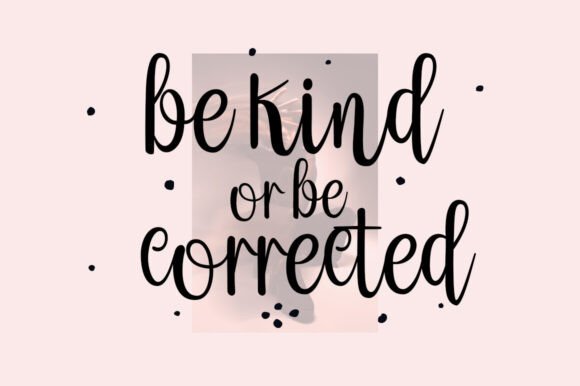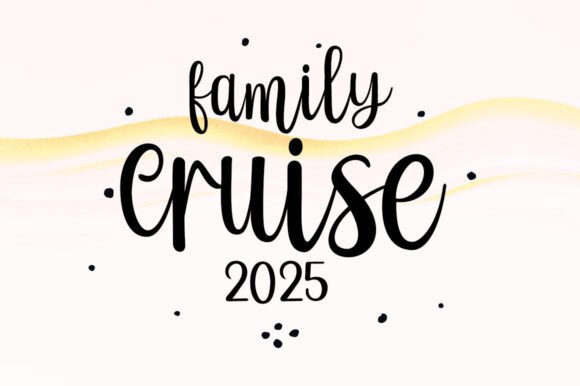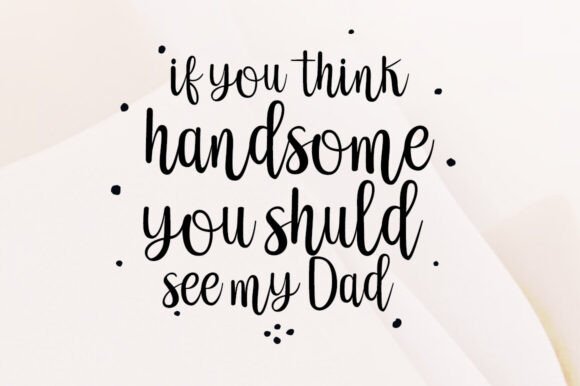
Introduction to Smile Craft Font
Have you ever been tasked with creating a design that perfectly captures the essence of a joyous occasion, but struggled to find the right font to convey that feeling? You’re not alone. Designers often face this challenge when working on creative projects, from wedding invitations to birthday party decorations. But what if you had a font that could add a touch of whimsy and romance to your designs, making them truly unforgettable?
That’s where the Smile Craft Font comes in – a special typeface designed to bring a smile to the faces of your audience. With its unique character designs, thicker lines, and curved details, this font is perfect for adding a celebratory touch to your designs. Whether you’re working on a high-quality design resource or simply want to add a personal touch to a creative project, the Smile Craft Font is a valuable addition to any designer’s toolkit.
Key Features of Smile Craft Font
- High-quality design resource with a playful, hand-drawn feel perfect for creative projects.
- Available in 6 unique styles, each with its own distinct personality and flair, making it ideal for a wide range of creative projects.
- Perfect for designers and artists looking for a unique, hand-crafted font to add a personal touch to their work.
- Great for use in logos, branding, packaging, and other design elements where a playful, creative feel is desired.
Honest Review: Smile Craft Font
I recently came across the Smile Craft Font while searching for a design resource to enhance my creative project. I was impressed by its high quality and decided to give it a try.
The font has a clean and elegant design that works well for various applications, from logos to body text. ✨ The transparent background makes it easy to customize and pair with other design elements. I was able to achieve a cohesive look for my project with minimal effort.
Here are some of the key features that I liked about the Smile Craft Font:
- High-quality design that is suitable for both digital and print media
However, I did encounter a few limitations with the Smile Craft Font:
- Some users may find the font too plain or lacking in personality
Overall, I’m impressed with the Smile Craft Font and would recommend it to designers who are looking for a clean and elegant design resource for their creative project. While it may have some limitations, the free download option makes it an excellent choice for designers on a budget.
Smile Craft Font
Getting the Most Out of Smile Craft Font
For best results, use the Smile Craft Font in conjunction with other high-quality design elements. Experiment with different font sizes, colors, and styles to create a visually appealing design. You can also use the font to create a consistent brand identity across your creative projects.
The Smile Craft Font is ideal for use in a variety of creative projects, including logos, business cards, and social media graphics. Its high quality and versatility make it a great addition to any design resource.
Alternatives to Smile Craft Font
Pacifico is a beautiful, high-quality script font that is perfect for creative projects requiring a touch of elegance. It’s ideal for designing wedding invitations, social media graphics, or any other design resource where a smooth, flowing font is desired. Pacifico’s unique design makes it stand out from other fonts, much like Smile Craft Font. However, Pacifico has a more relaxed and casual feel, making it suitable for everyday use.